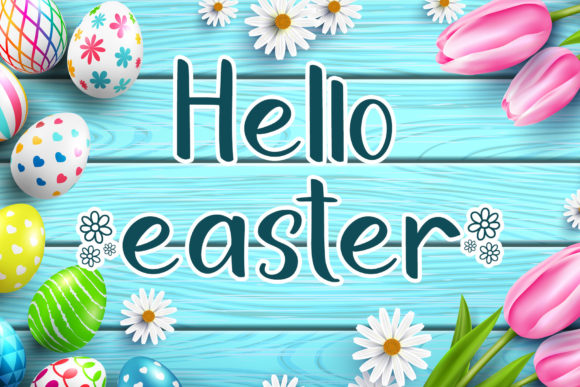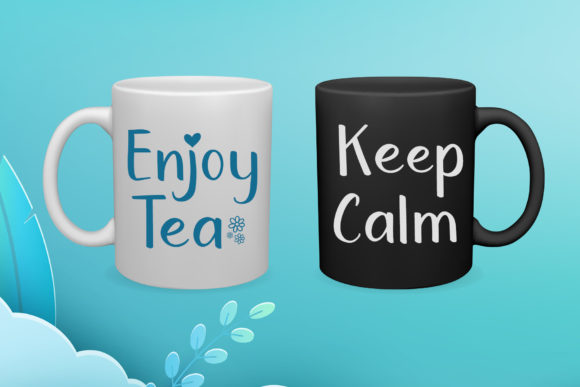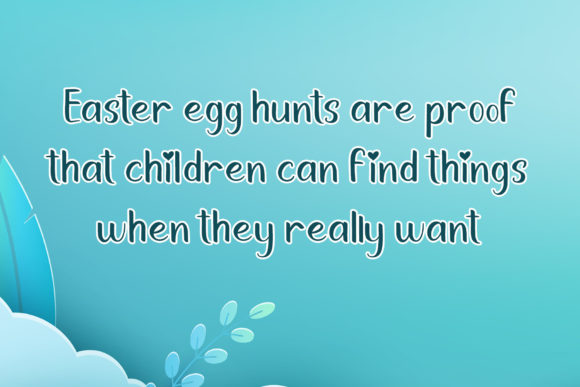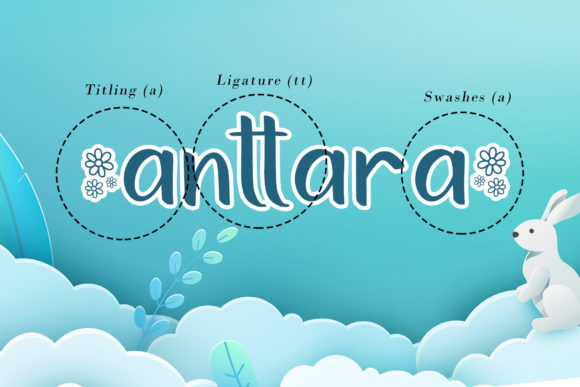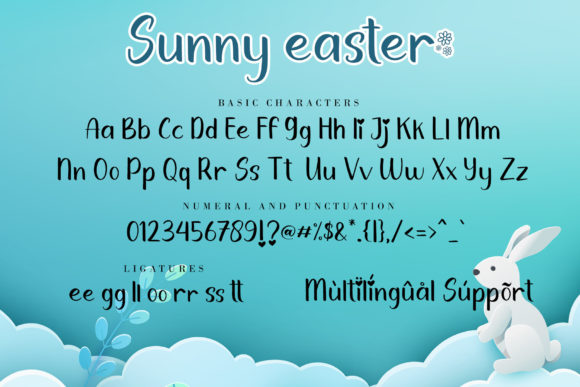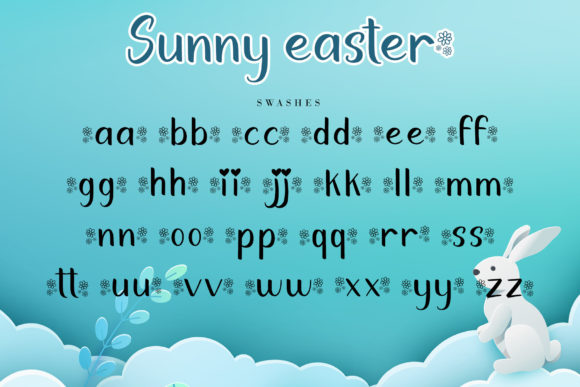
About Sunny Easter Font
Sunny Easter is a romantic and sweet handwritten font. It is ideal for Easter-themed greeting cards or any other design that may need a lovely, personalized touch! This font is PUA encoded which means you can access all of the glyphs and swashes with ease!